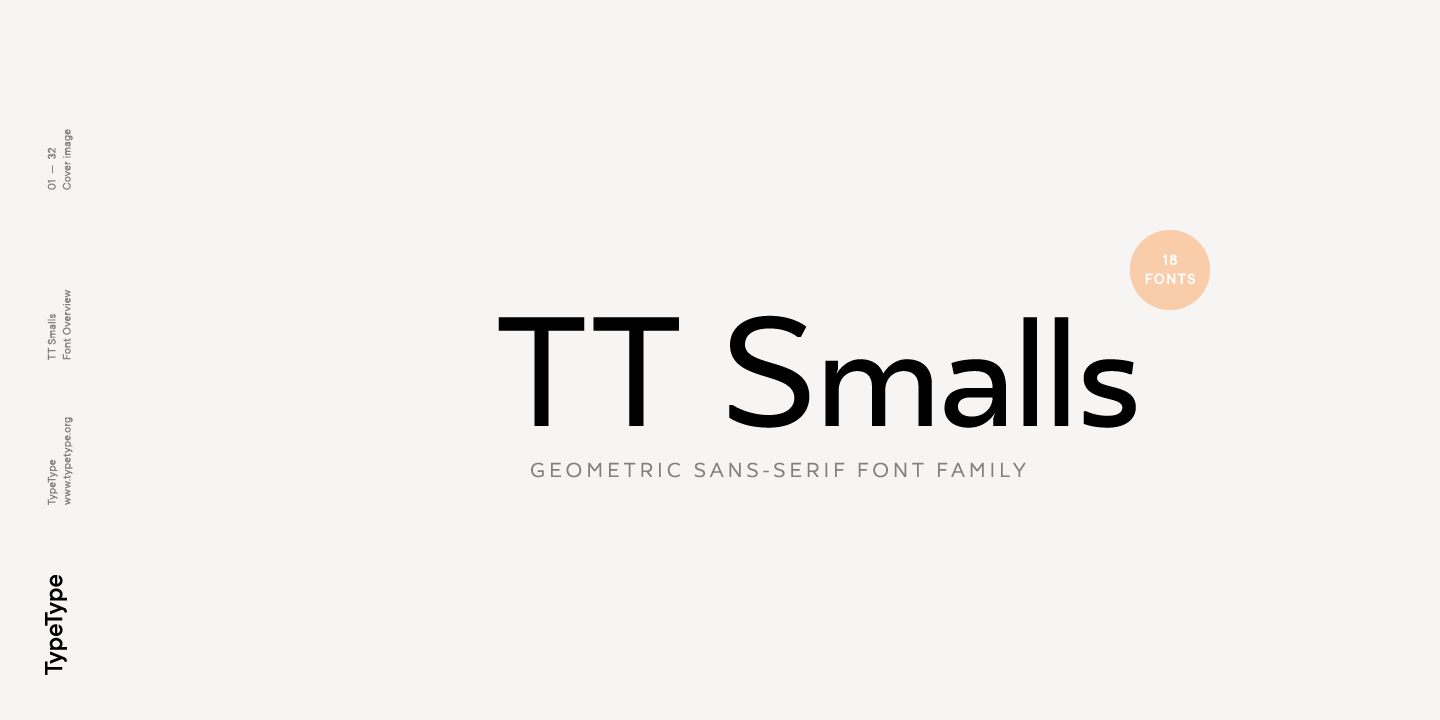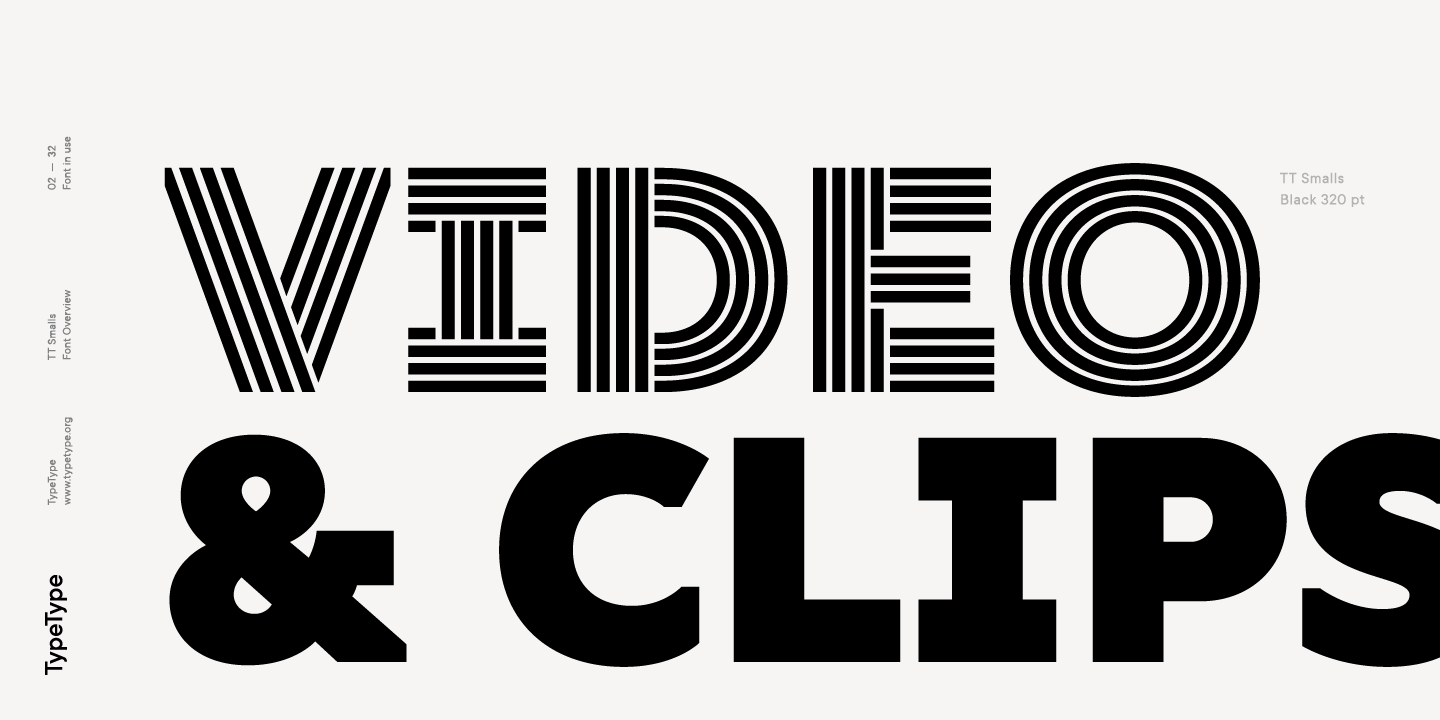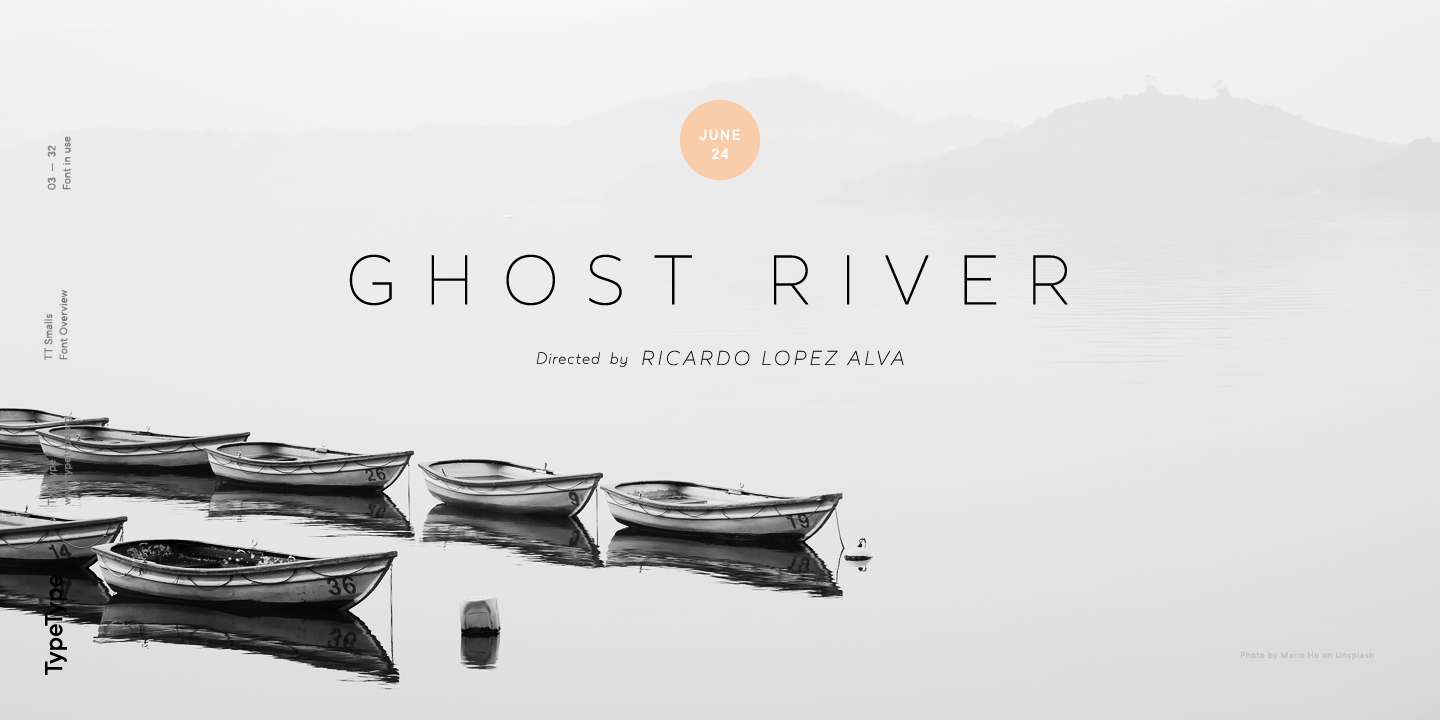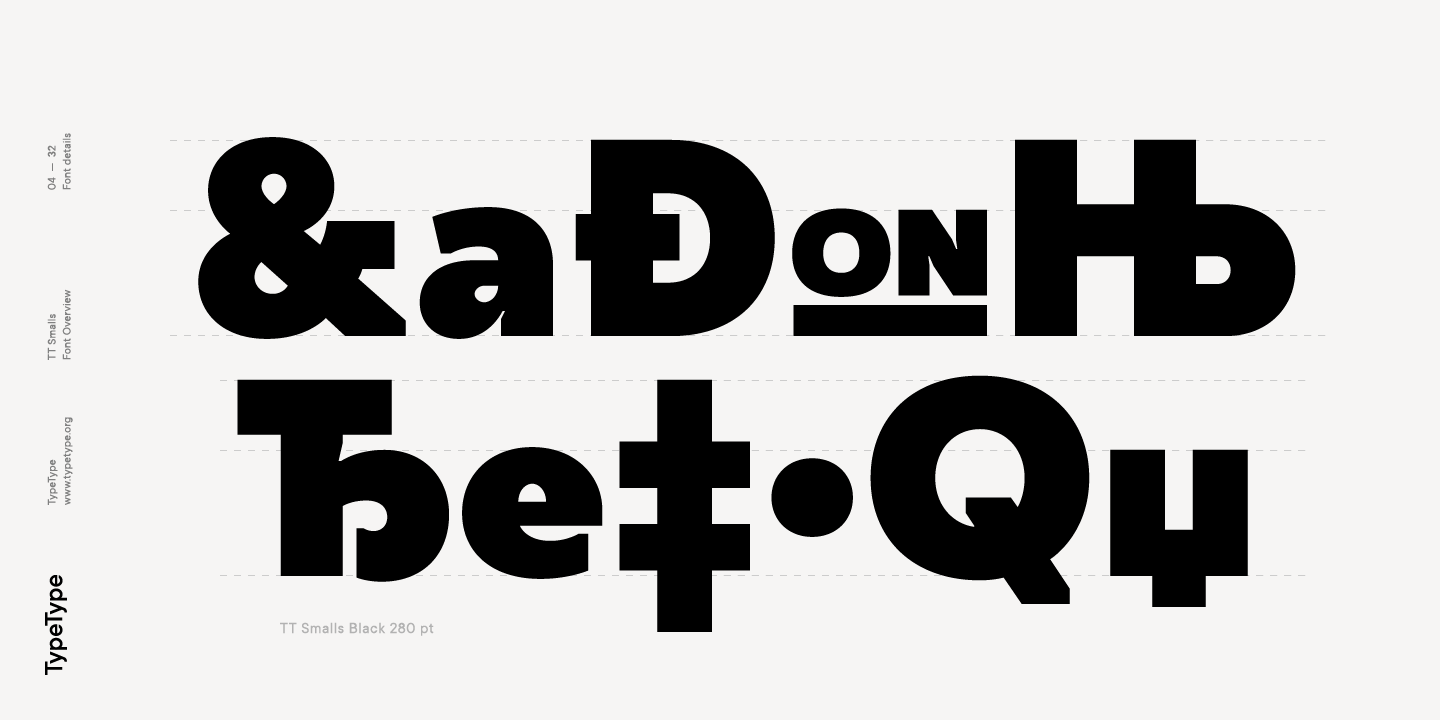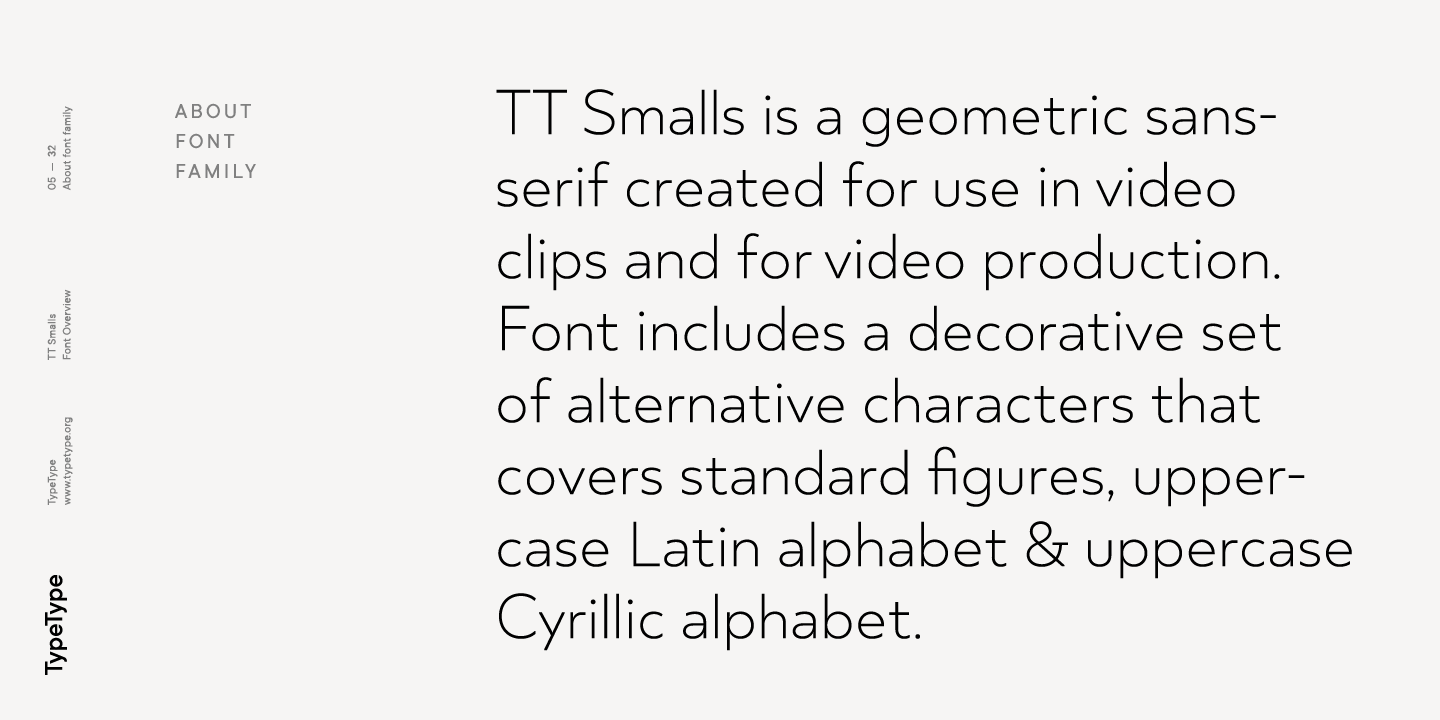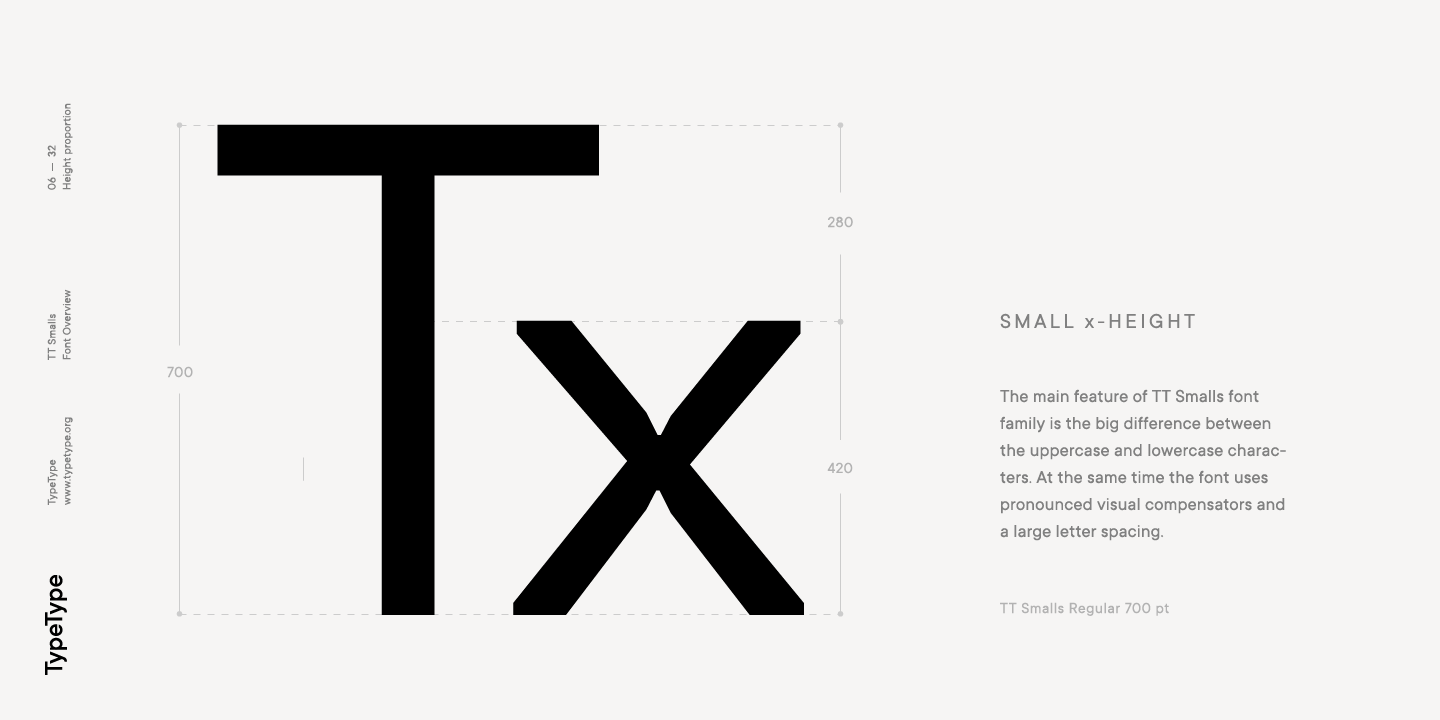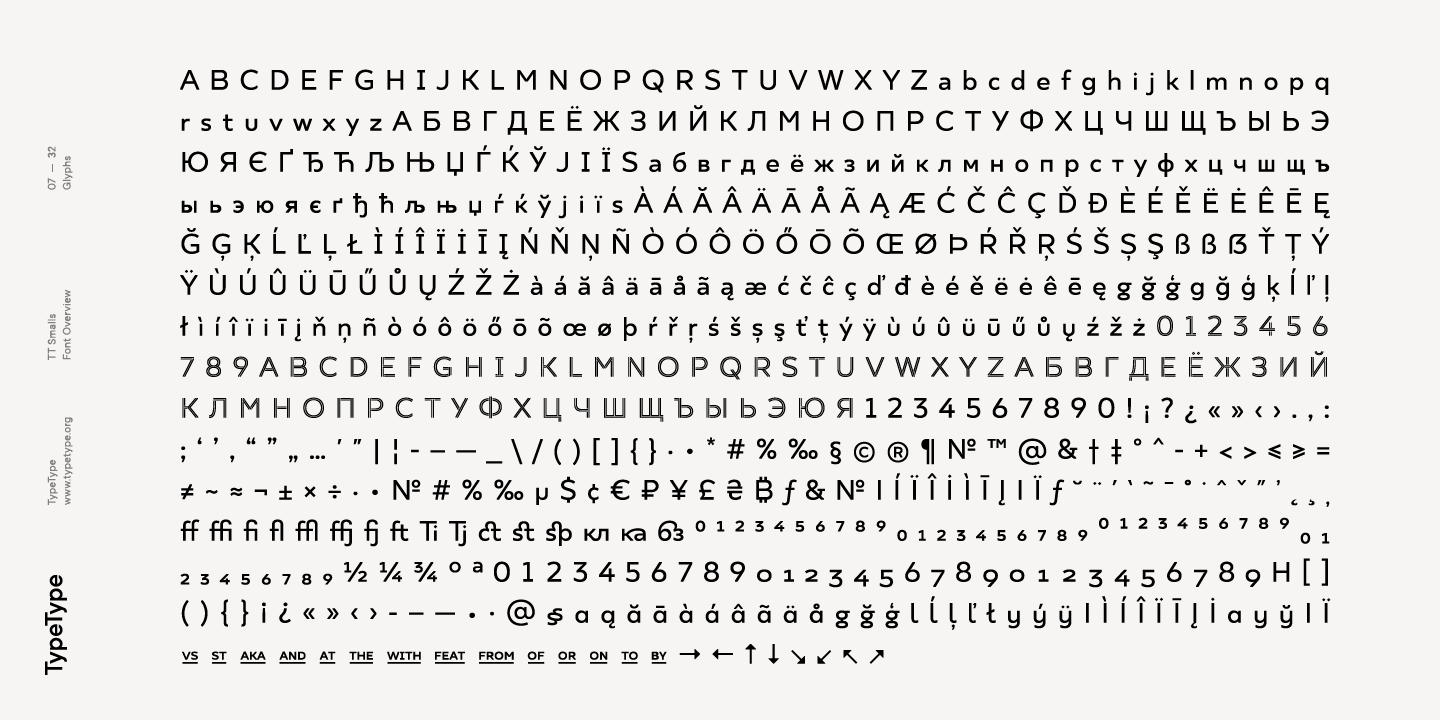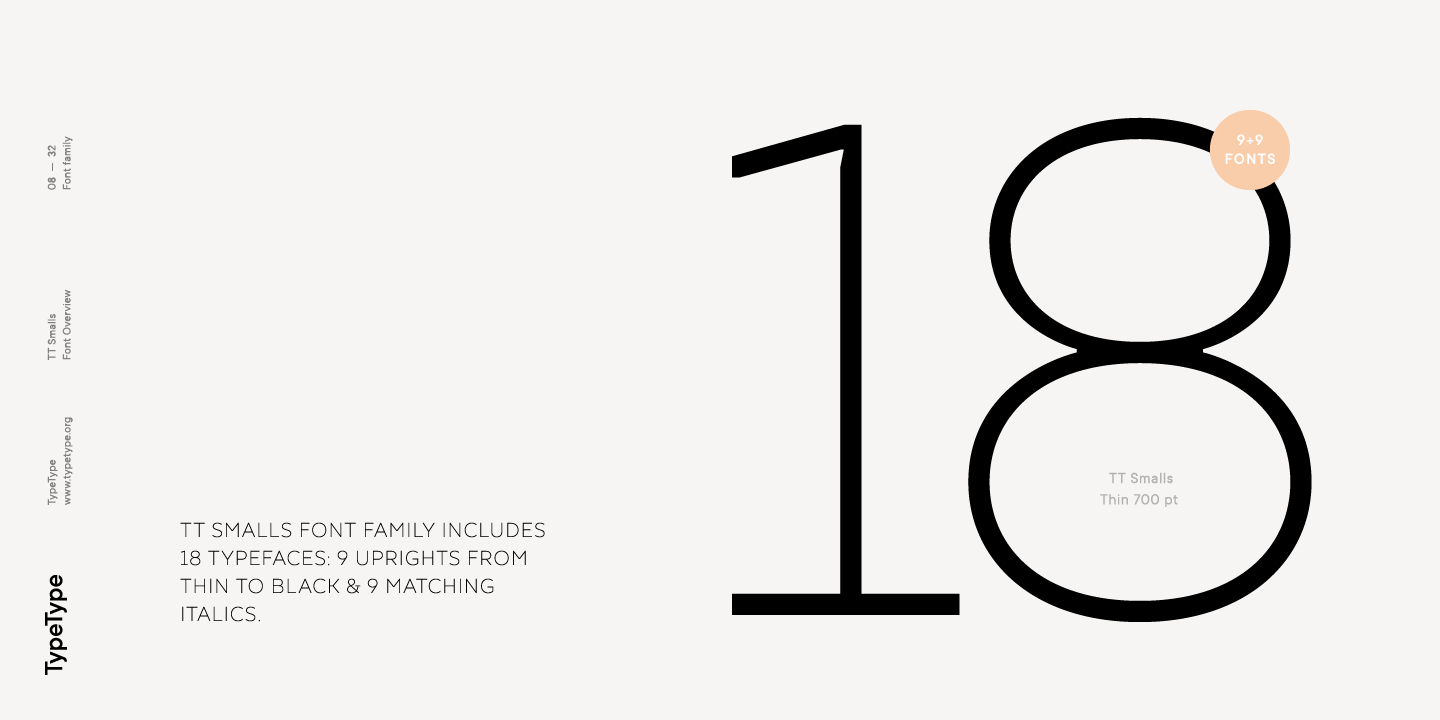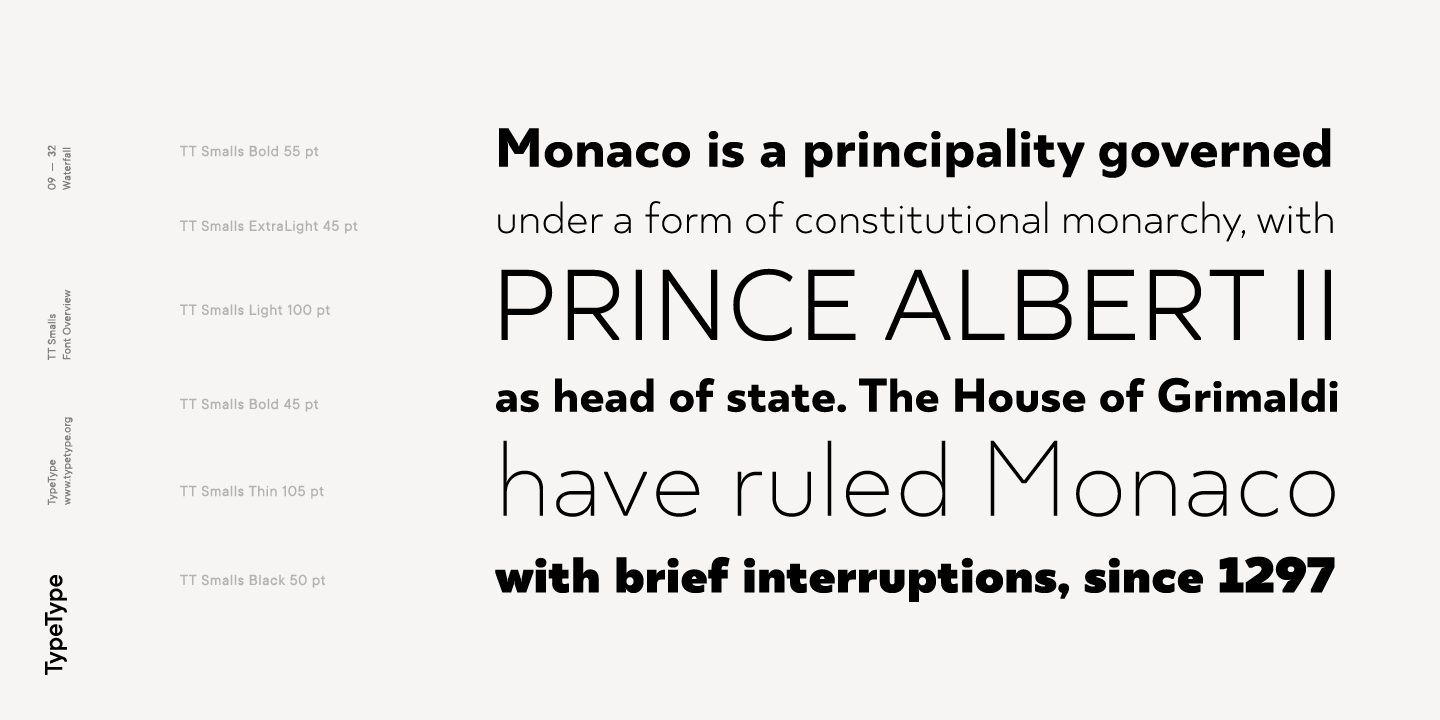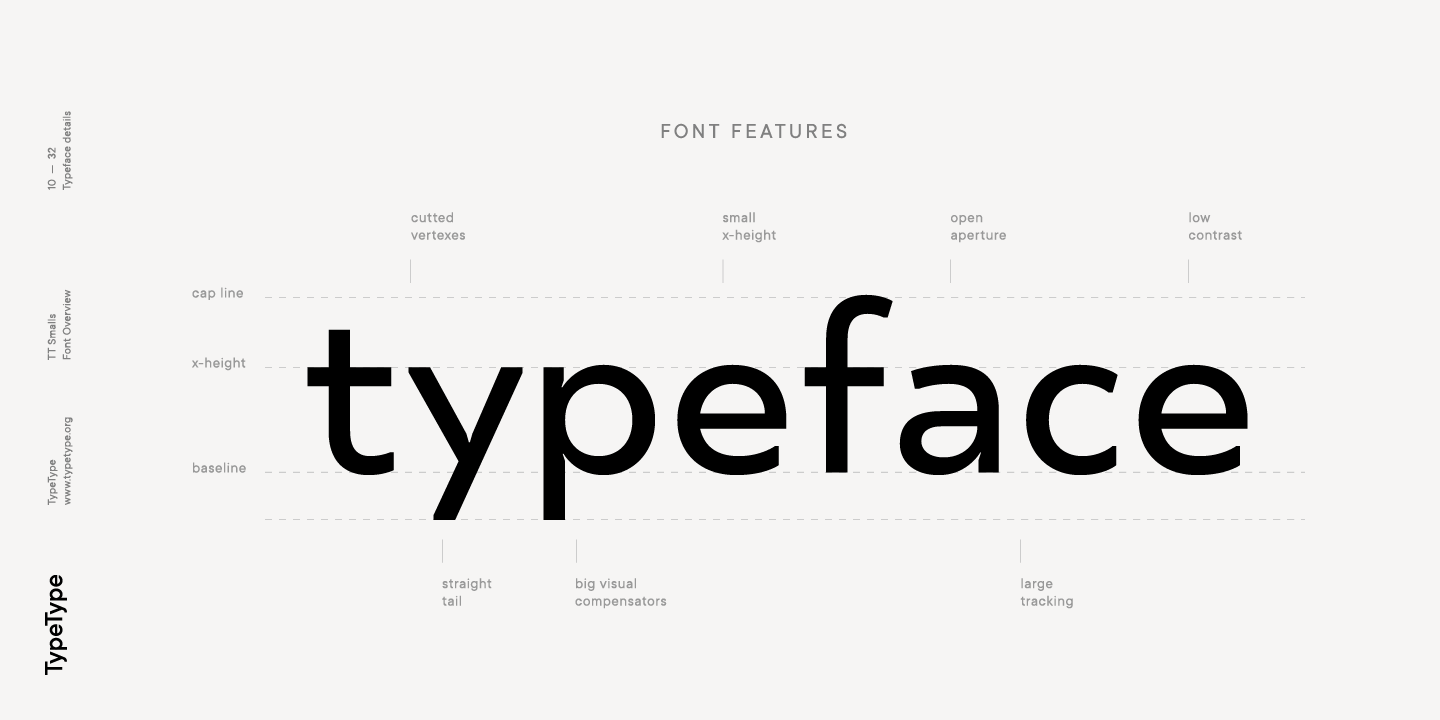
TT Smalls Family (18 fonts)
In the typeface there is a decorative set of alternative characters that covers the uppercase Latin alphabet, uppercase Cyrillic alphabet, and standard figures. As the thickness of the strokes decreases, the number of layer lines in the design of the letter decreases. For example, in the Black weight, the design in an alternative decorative set consists of 4 layers-lines, and in Thin already only of one line. In order to simplify the access to this special set, we have programmed it for the SMCP (small caps) feature. You just need to turn it on.
The TT Smalls font family consists of 18 fonts: 9 weights and 9 italics. The family has a set of stylistic alternatives, which make the typeface a bit more humanist when turned on. TT Smalls features 16 ligatures, including several Cyrillic, old-style figures, a set of navigational arrows. In addition, TT Smalls supports a large number of other useful OpenType features such as case, ordn, sups, sinf, dnom, numr, onum, tnum, pnum, calt, frac.